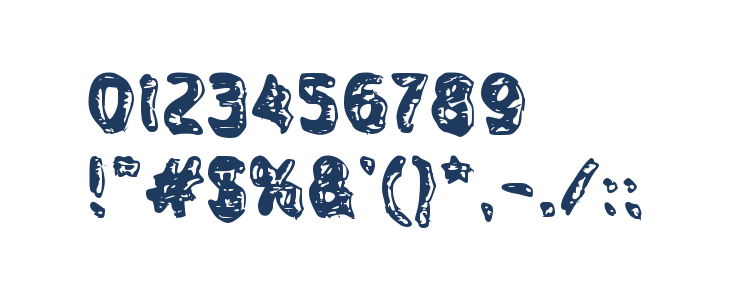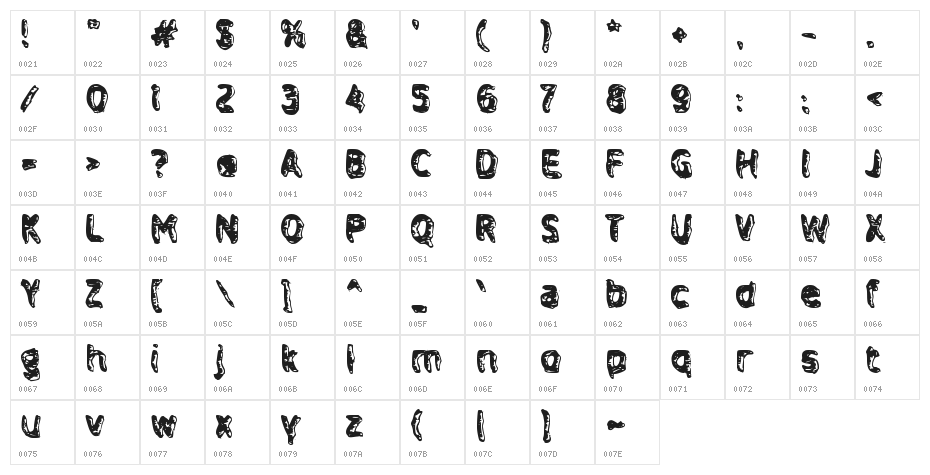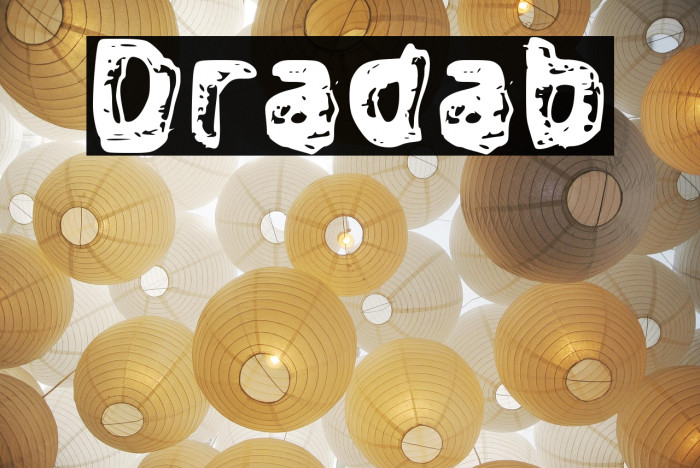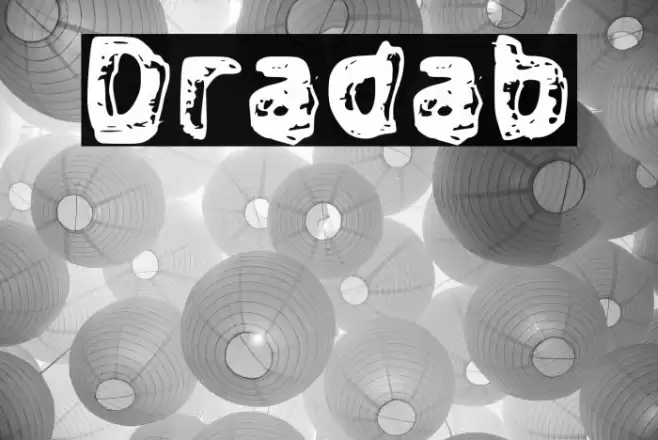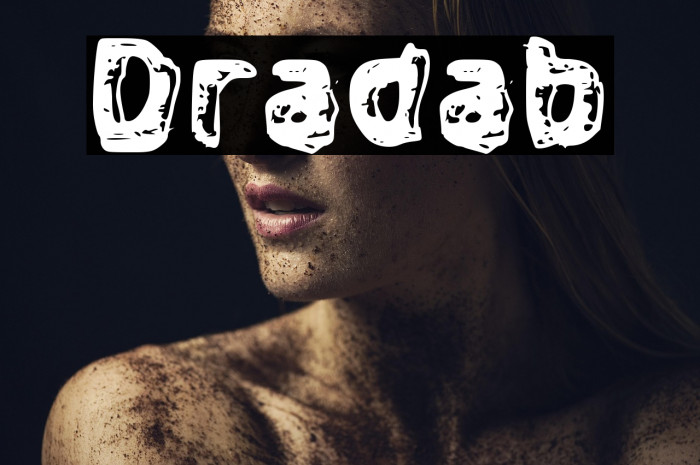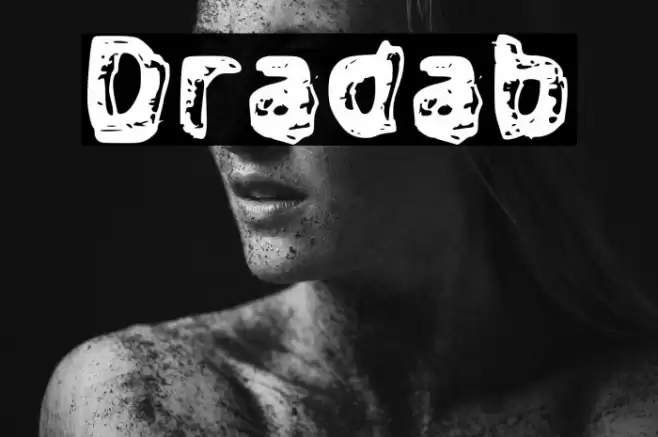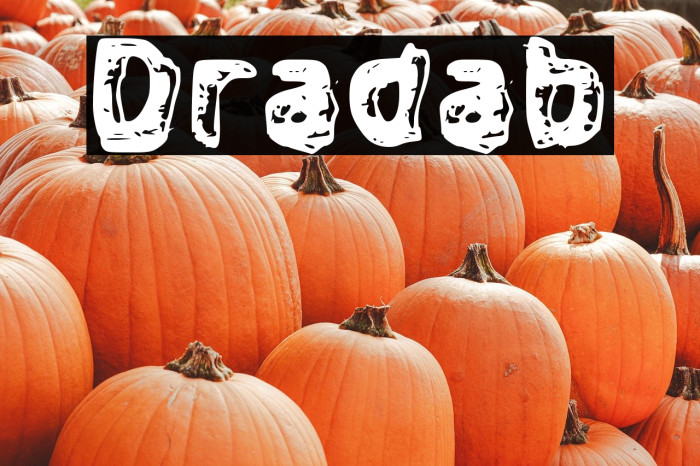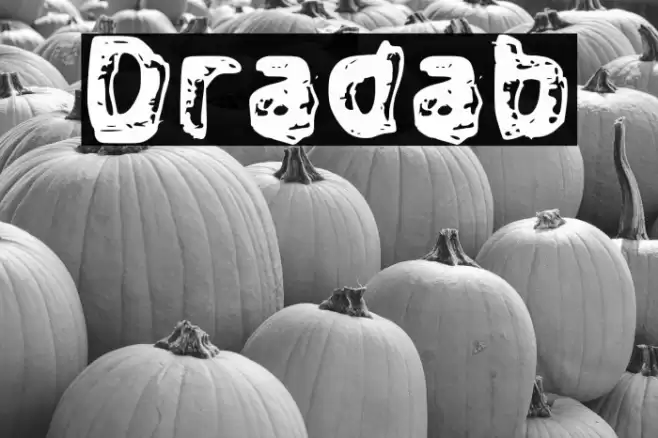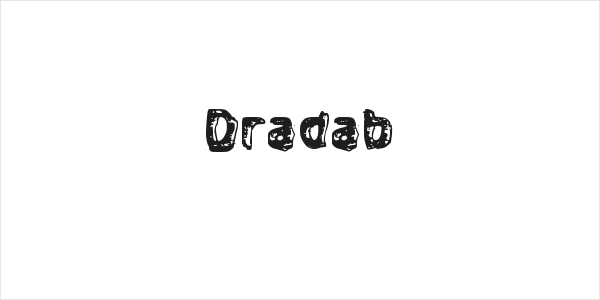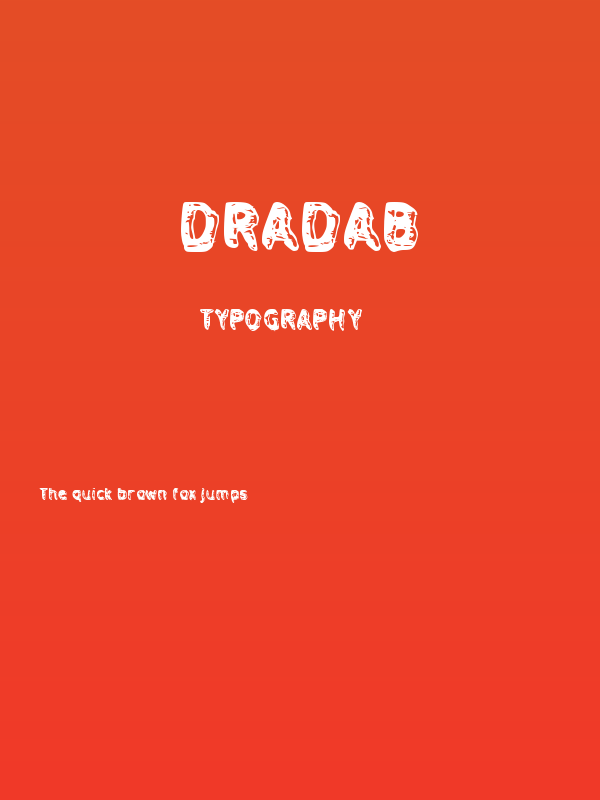
Dradab Font
Dradab Description
This font features a bold, playful style with a distinctly irregular and organic appearance. Each character is filled with a pattern reminiscent of splatters or ink blots, giving it a dynamic and energetic feel. The letters are rounded and somewhat chunky, with varying thickness that adds to the whimsical nature of the design. The overall look is both eye-catching and unconventional, making it suitable for creative and informal applications. The font's unique texture and bold presence make it ideal for projects that require a standout visual element.
| Proposed Projects | Perfect for posters, children's book covers, playful branding, and artistic projects. |